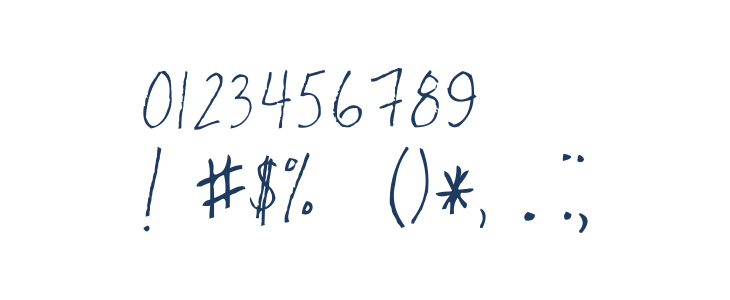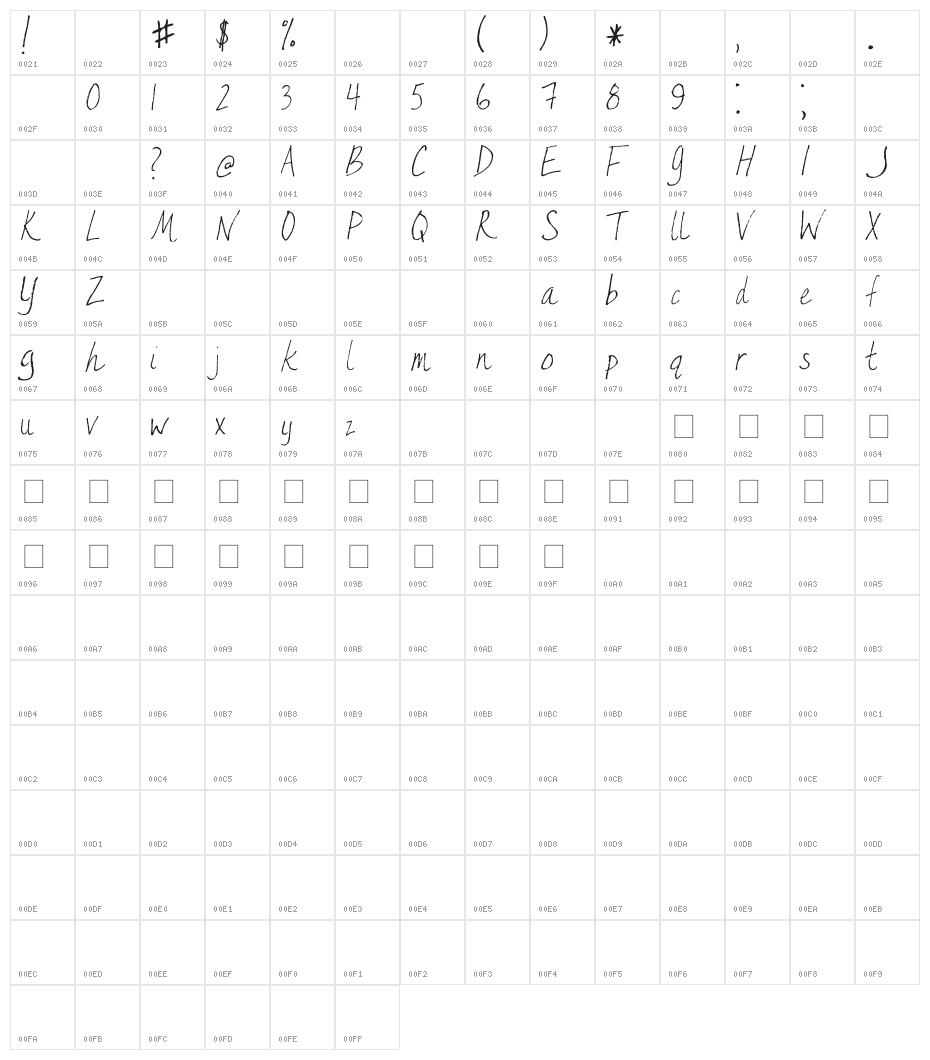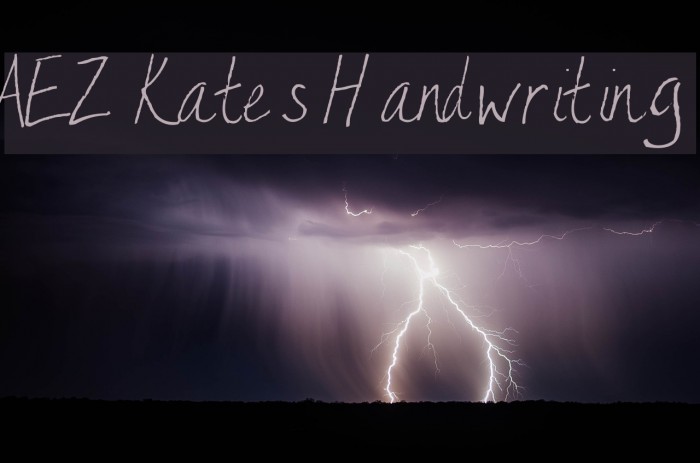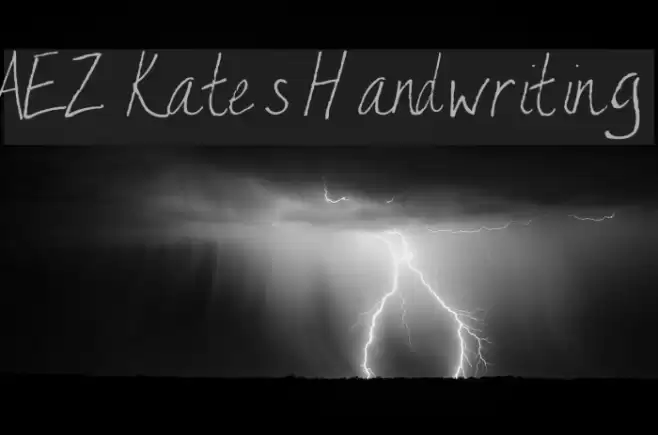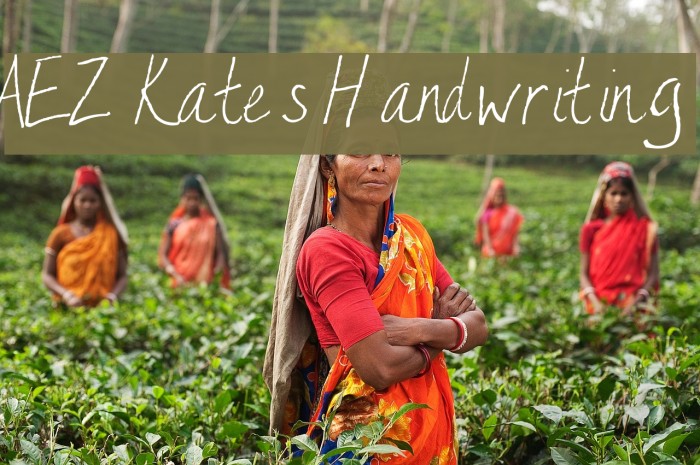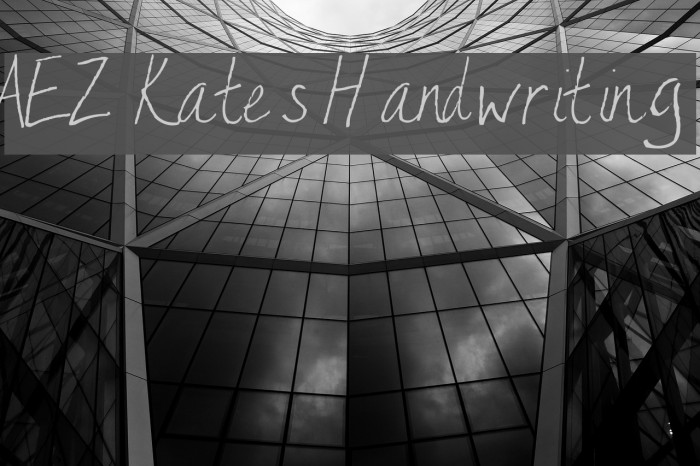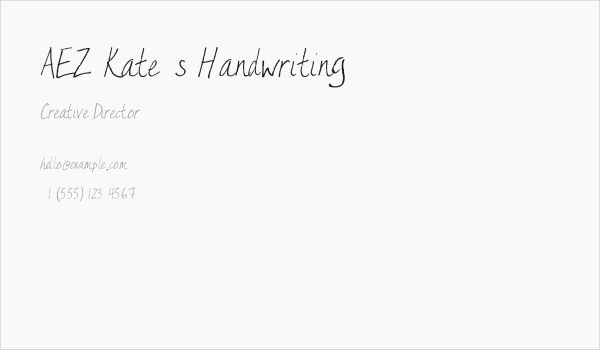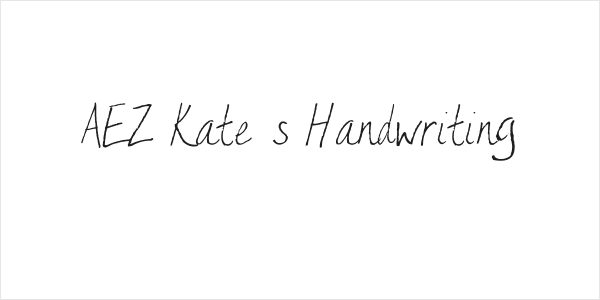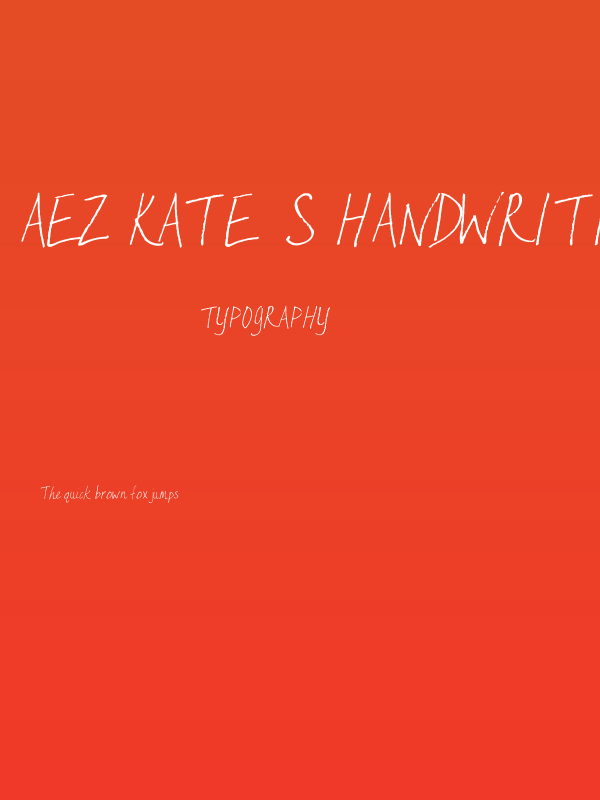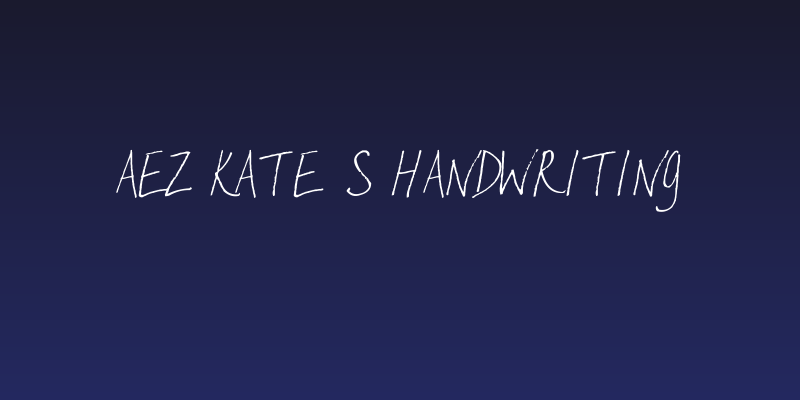
AEZ Kate's Handwriting Font
AEZ Kate's Handwriting Description
This font exudes a personal and informal style, reminiscent of natural handwriting. The strokes are uneven and slightly slanted, giving it an authentic, hand-drawn appearance. The characters vary in size and spacing, adding to the casual and spontaneous feel. The uppercase letters are tall and narrow, while the lowercase letters are more rounded and freeform. Numbers and special characters maintain the same handwritten aesthetic, with a playful and approachable vibe.
| Use Case | Creative projects, personal notes, informal communications. |
| Proposed Projects | Ideal for personal notes, greeting cards, informal invitations, and creative projects that require a human touch. |